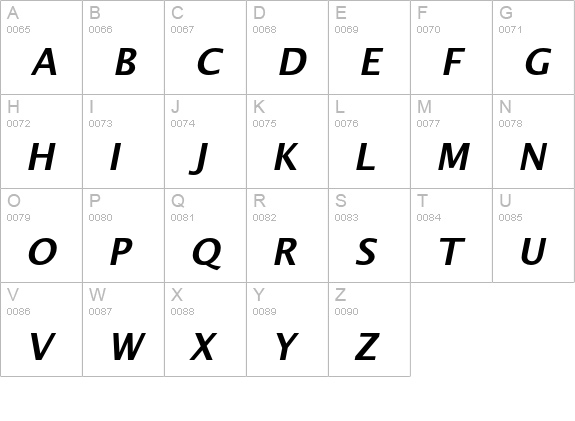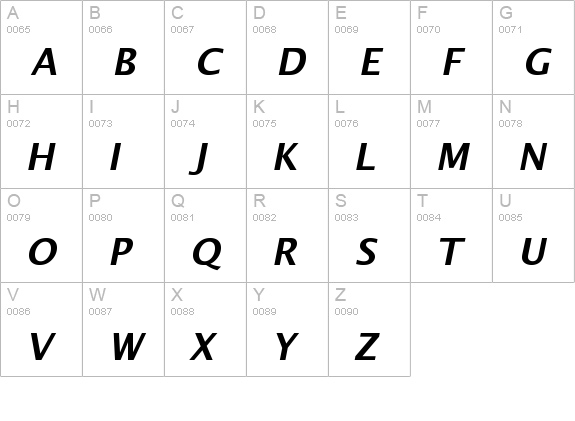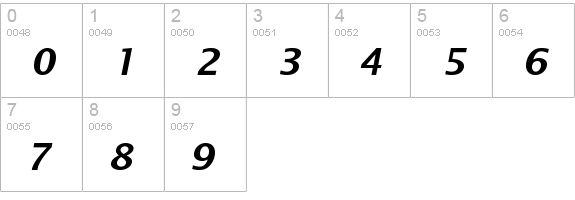
LucidaSansEF-DemiBoldIta Font Details
LucidaSansEF-DemiBoldIta is a modern and stylish font that exudes confidence and sophistication. With its bold and italicized design, this typeface is perfect for making a statement in any project. The sleek and elegant curves of LucidaSansEF-DemiBoldIta give off a sense of professionalism and creativity. What sets this font apart is that it is available for free download at FontsMarket.com. This means that you can easily access and use it for personal or commercial projects without any cost. Whether you're designing a website, creating a logo, or working on a marketing campaign, LucidaSansEF-DemiBoldIta will help you achieve a polished and eye-catching look. Don't miss out on this opportunity to enhance your designs with this stunning and versatile font.